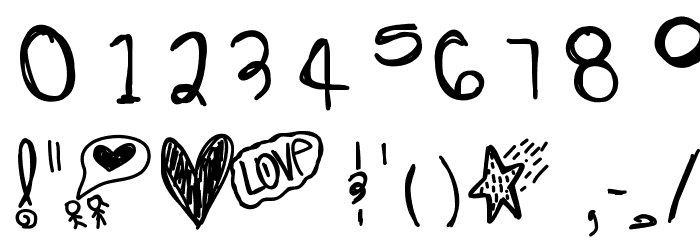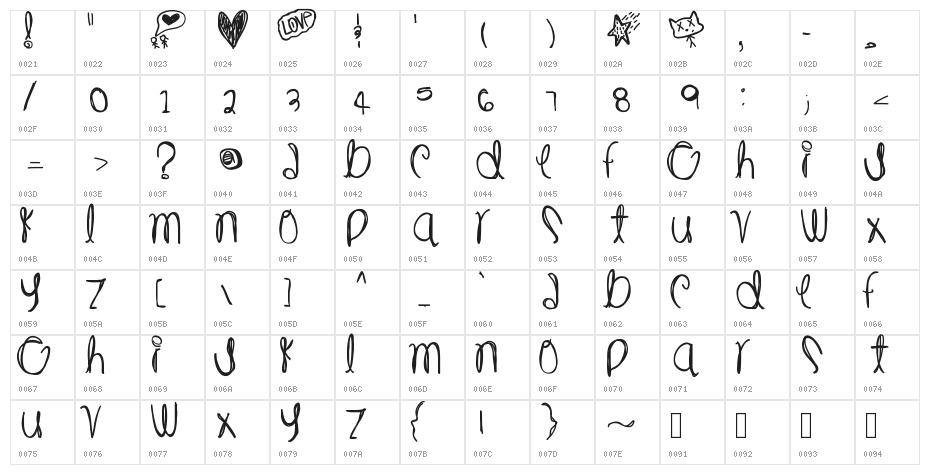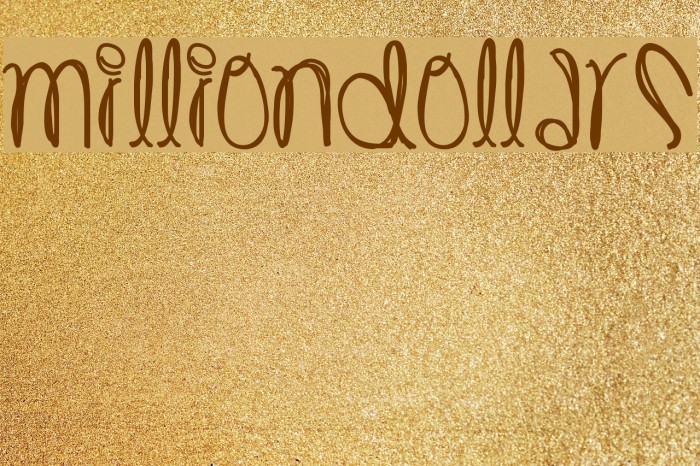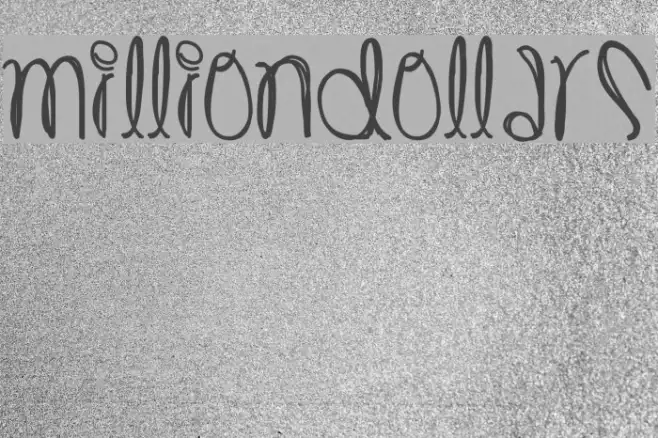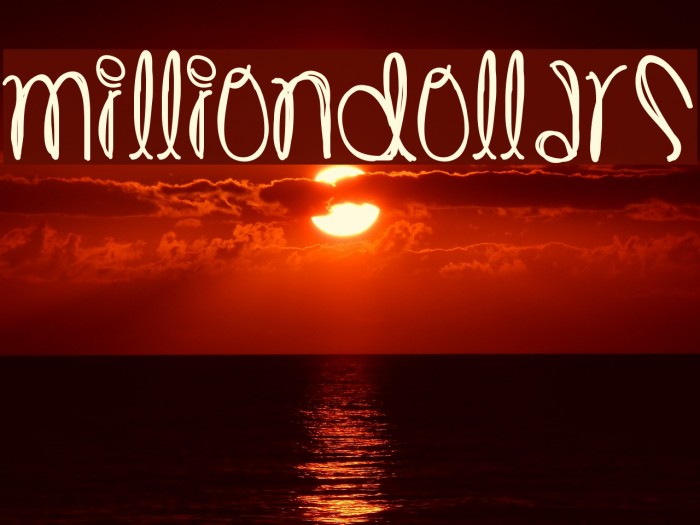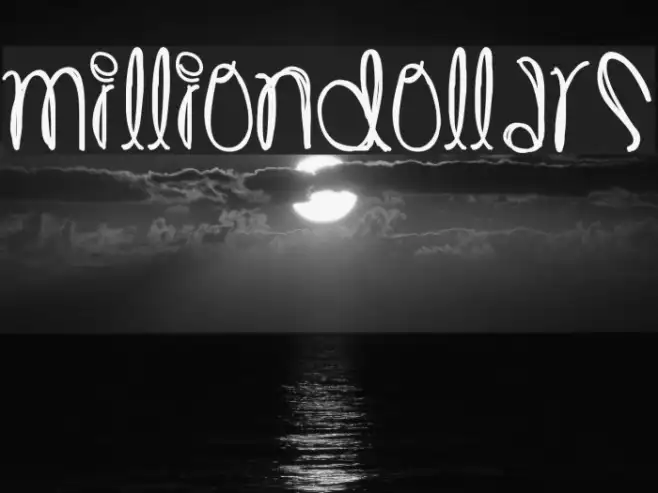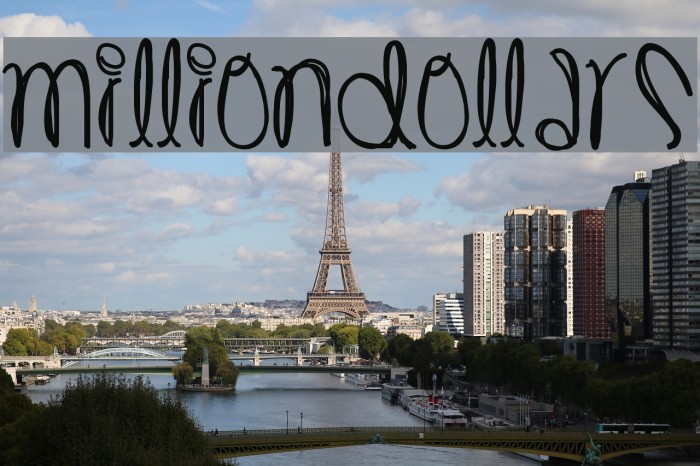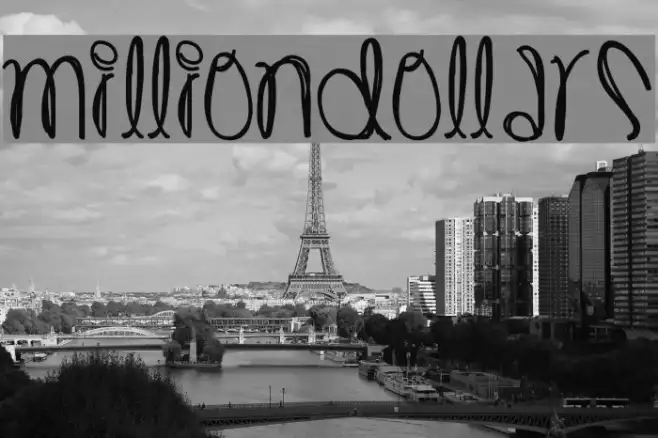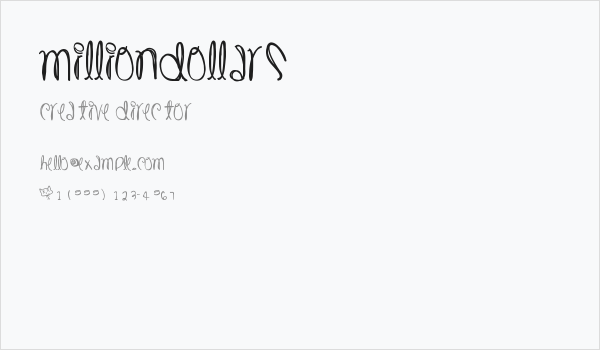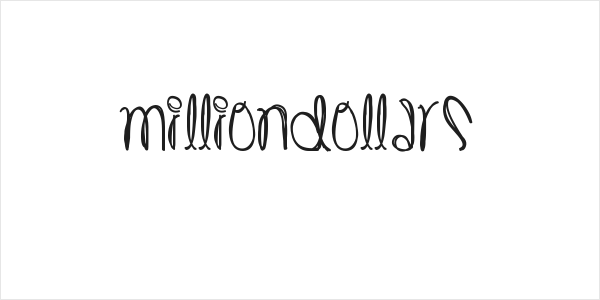
MillionDollars Font
MillionDollars Description
This font exudes a playful and whimsical charm, characterized by its hand-drawn, casual style. The letters are crafted with a fluid, organic feel, featuring irregular curves and loops that give it a lively personality. The uppercase and lowercase letters maintain a consistent style, with a slightly exaggerated height that adds to its quirky appeal. Numbers and special characters follow the same playful design, making it versatile for creative projects. The strokes are bold and consistent, ensuring readability while maintaining its artistic flair. This font is perfect for projects that require a touch of fun and creativity, such as children's books, playful branding, or artistic posters.
| Proposed Projects | Ideal for children's books, playful branding, artistic posters, and creative invitations. |